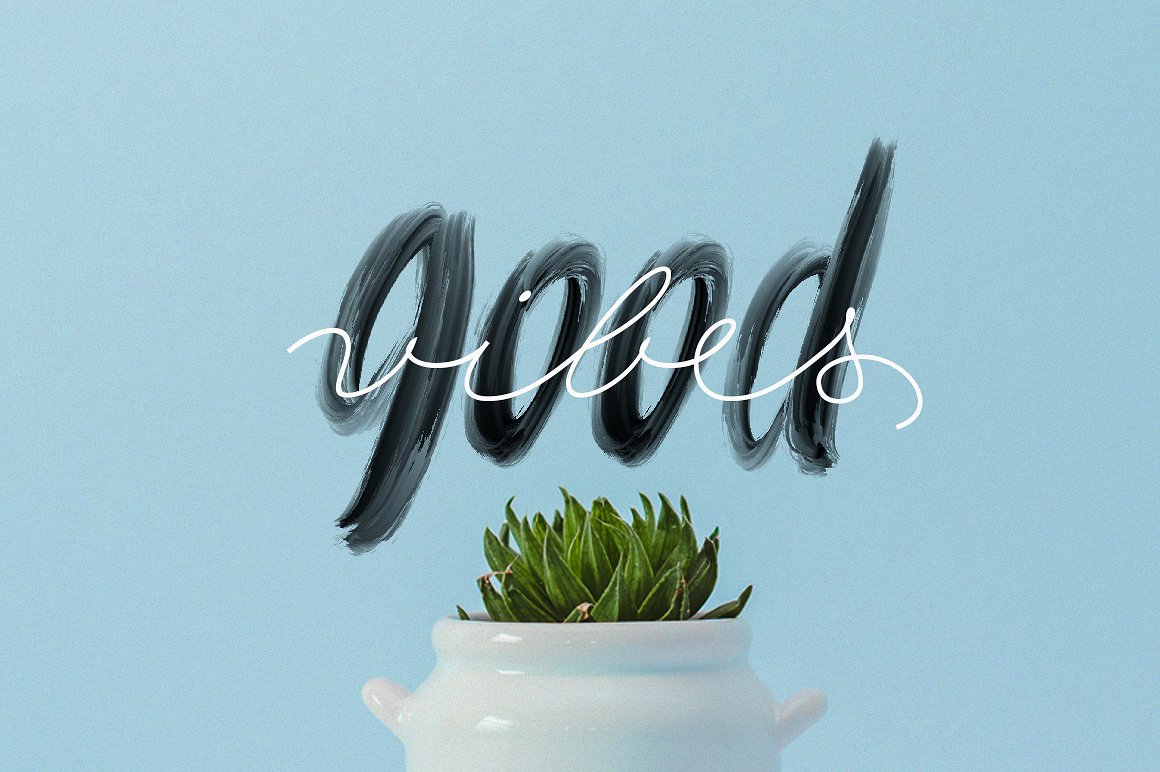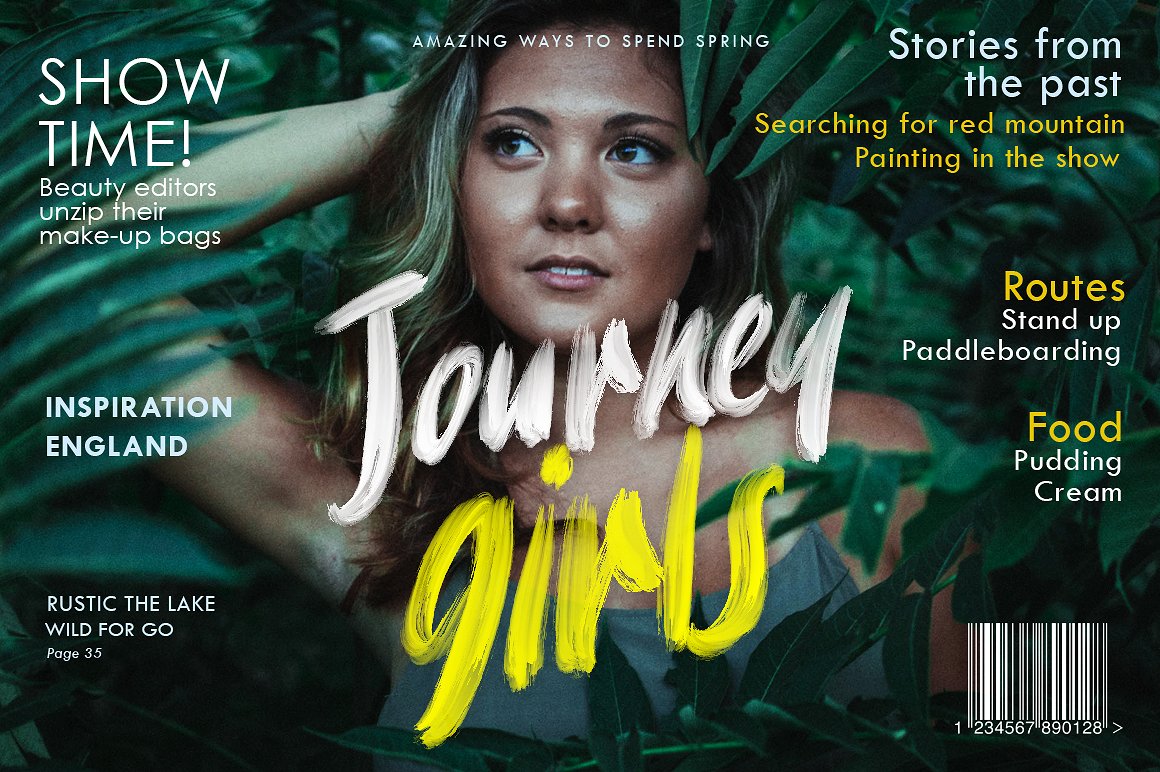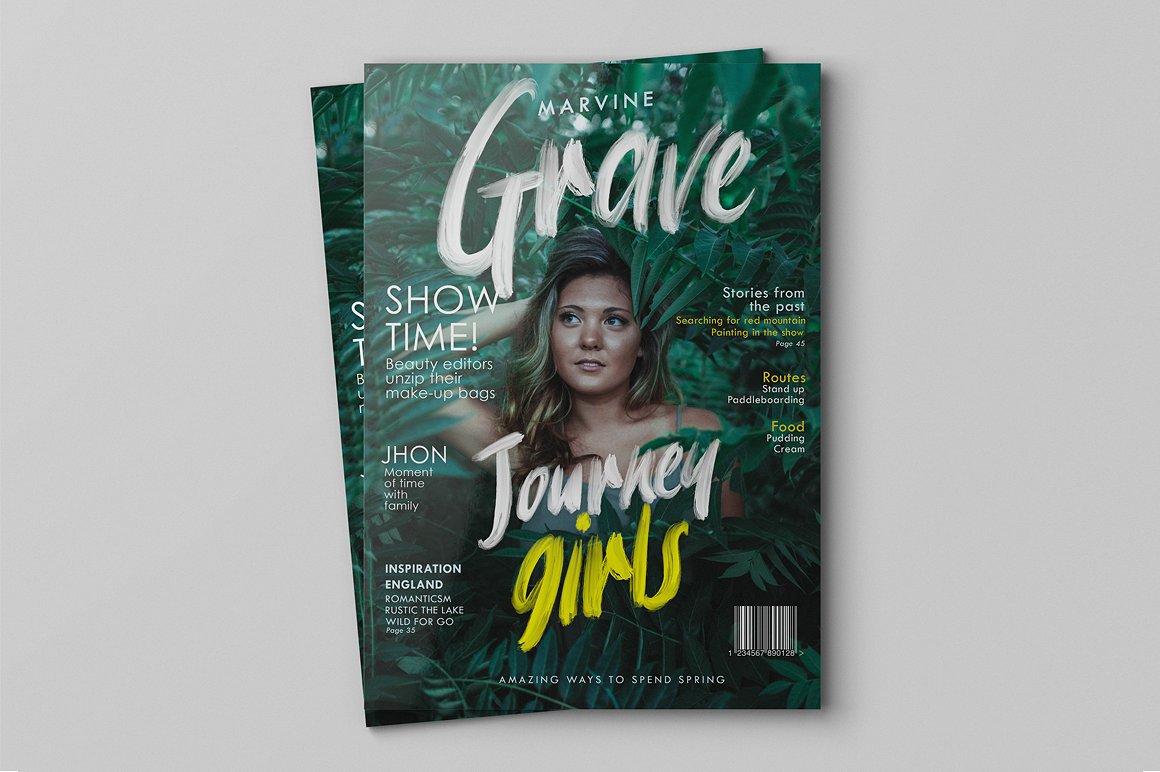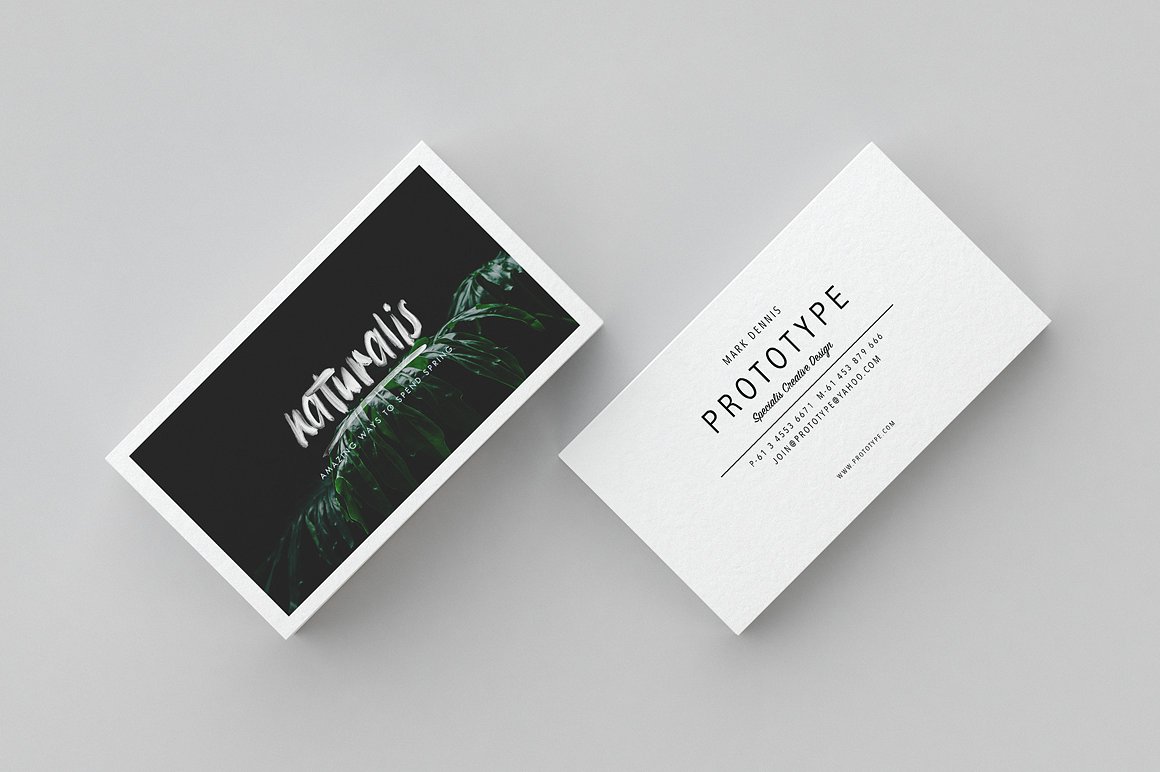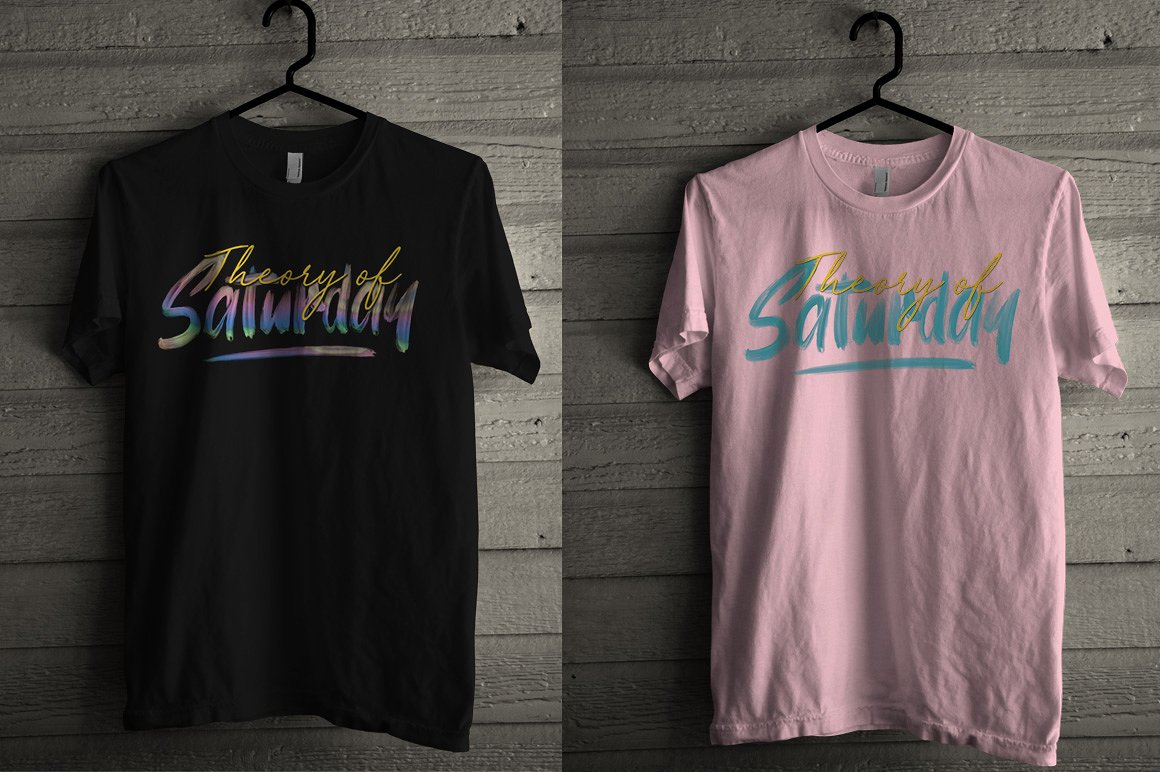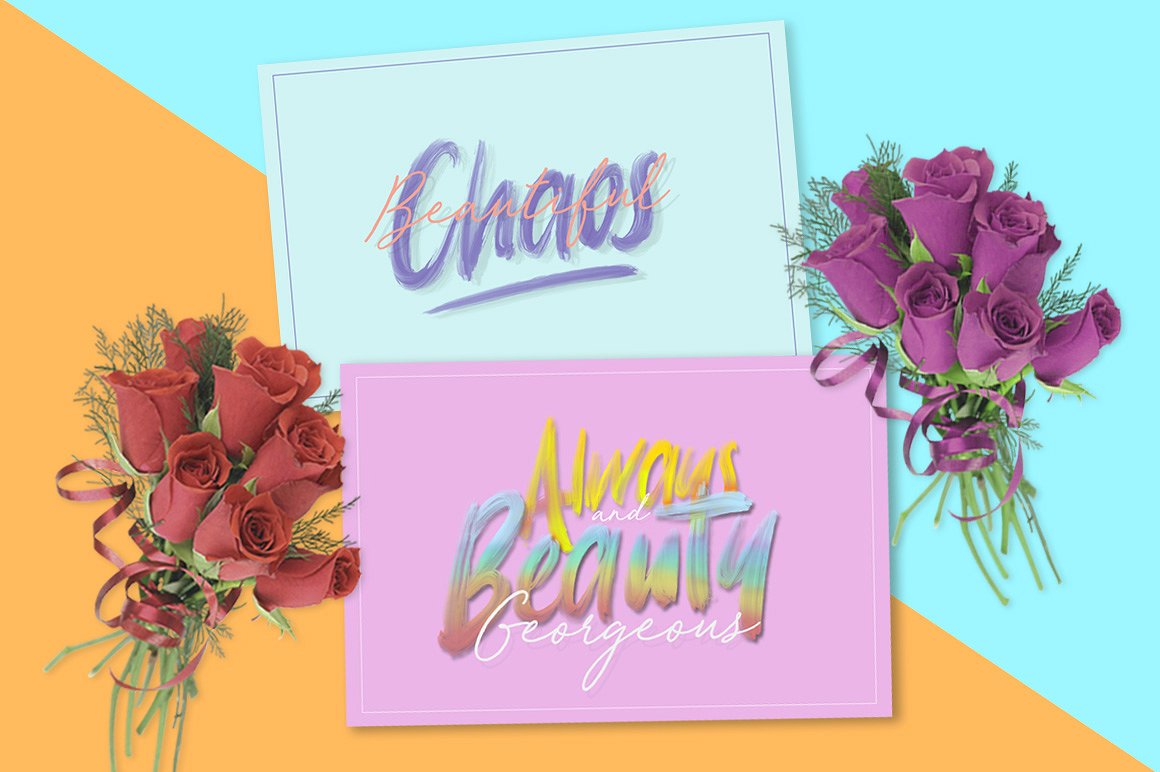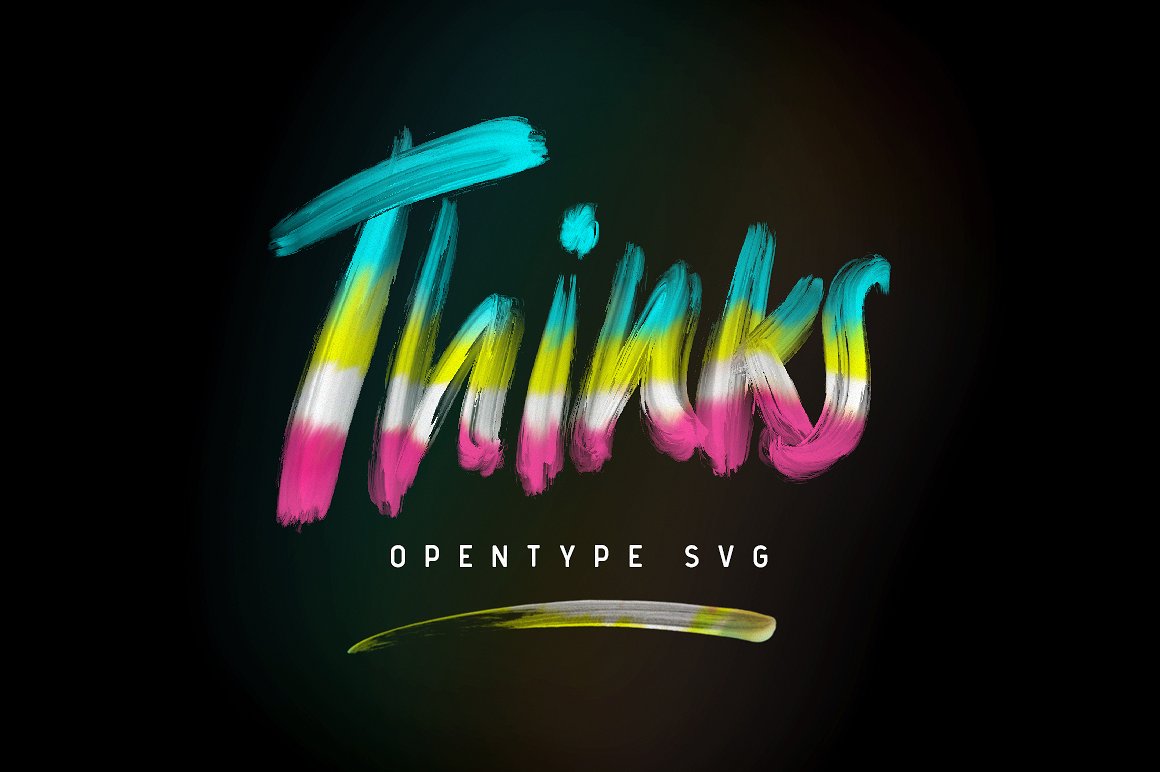
Thinks Opentype Font
What Is Thinks Opentype Font?
Thinks is an extraordinary OpenTypeSVG brush font that pushes the limits of traditional typography. Unlike standard typefaces, each character in Thinks is created from high-resolution brush stroke images. The result is hyper-realistic, highly detailed letterforms that look hand-painted and instantly draw attention. If you want your designs to stand out, this font delivers unmatched visual impact.
Its experimental, artistic approach makes Thinks an essential choice for designers seeking originality and authenticity.
Thinks is perfect for a wide range of creative applications where you need your design to make a statement. For example, it’s ideal for posters and large-format prints. The stunning brush detail looks incredible at any scale, making headlines and display text unforgettable.
Branding materials benefit from Thinks’ bold personality. From edgy logos and packaging to product labels and merchandise, this font helps create a unique identity that feels handcrafted and premium.
Digital artwork and social media graphics also shine with Thinks’ distinctive texture. Use it for promotional banners, album covers, or creative campaigns to stop the scroll and leave a lasting impression.
You can even incorporate Thinks into presentations, event signage, and editorial layouts to add drama and artistic flair.
Why Should You Choose Thinks Font?
Thinks Font sets itself apart with its hyper-realistic brush stroke detail. Every character has authentic texture, depth, and variation that simply isn’t possible with standard vector fonts. If you want a design that feels raw, fresh, and full of character, this font delivers.
Because Thinks uses the OpenTypeSVG format, you get rich color and transparency built right into each letter. This allows you to create artwork that feels vibrant and alive without any additional effects or editing.
Thinks Font transforms ordinary projects into attention-grabbing works of art. Its brush stroke textures add movement, energy, and authenticity that immediately resonate with viewers.
Even minimal designs gain dimension and drama when you use Thinks. Whether you’re designing a poster, branding package, or digital ad, this font elevates your visuals with a handcrafted, artistic feel.
Using a cutting-edge OpenTypeSVG font also shows your commitment to innovative, professional design. Clients and customers will notice your attention to detail and originality, helping you stand out in a crowded creative field.
Thinks Opentype Font is more than a typeface—it’s an artistic tool that helps you express ideas boldly and beautifully. With hyper-realistic brush detail and unmatched character, this font elevates everything from branding and packaging to digital artwork and editorial layouts.